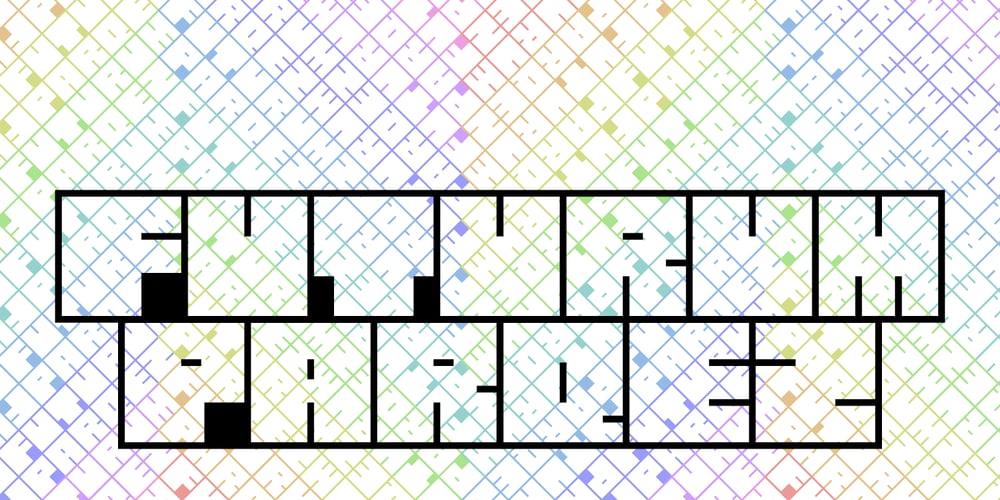
Futurum Parqez
Futurum Parqez font
Futurum Parqez Font Family was designed by Martin L. Parker, Jose V Lopez and published by Parquillian Design. Futurum Parqez contains 1 styles and family package options. Futurum Parqez is the first collaborative font for Parquillian Design. The idea for this font first came to the creator, Jose V Lopez, almost 40 years ago. A couple years ago he shared his concepts and we were gradually able to collaborate on editing the designs and turn them into a working font. The philosophy behind the font is to use a standardized frame format and the fewest strokes possible, while maintaining legibility, to create an original minimalist and modern style.